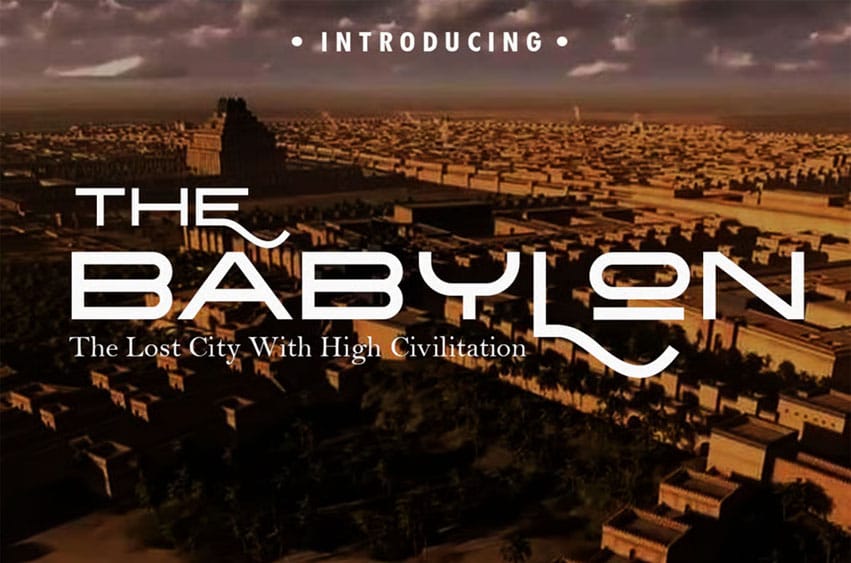
Babylon Sans Font is a playful and elegant sans serif, perfect for branding projects, headlines, posters and packaging also for logos!
Primarily it is characterized by a modern look with straight shapes, but on closer view, A wide range of alternate characters, as well as five style typeface! Furthermore it is a unicase typeface, all of the Babylon play with uppercase initials.